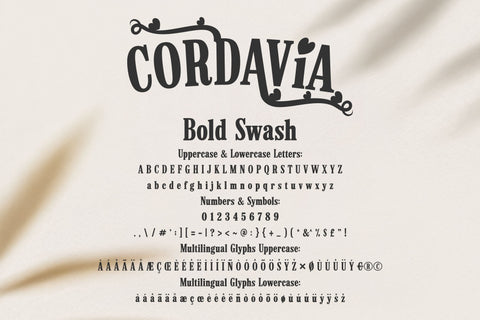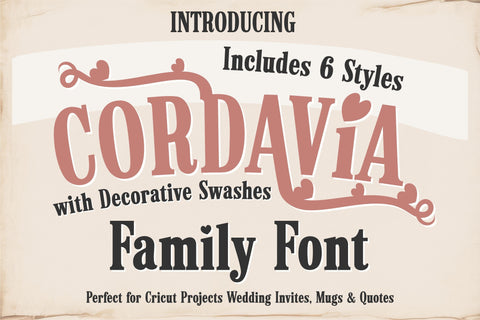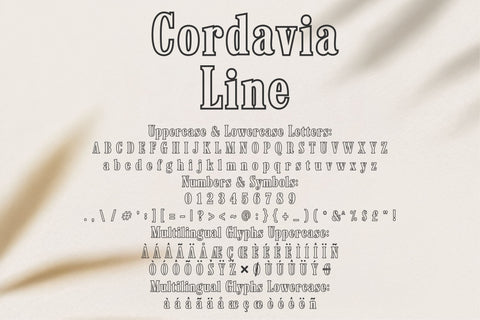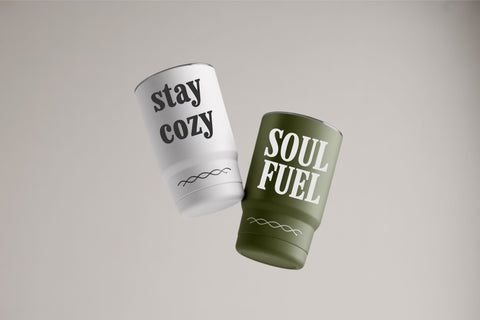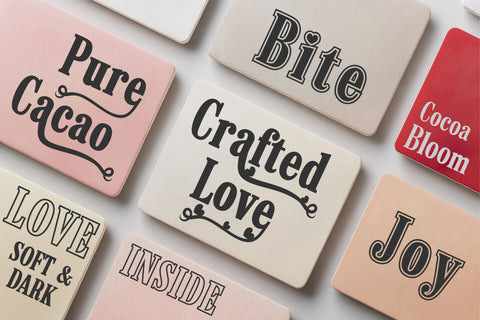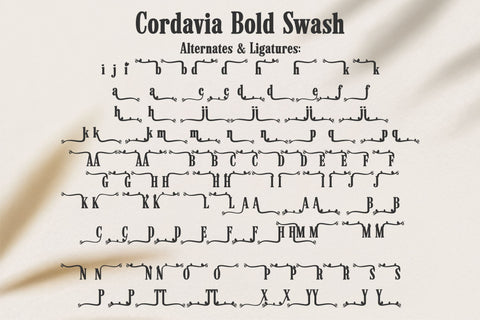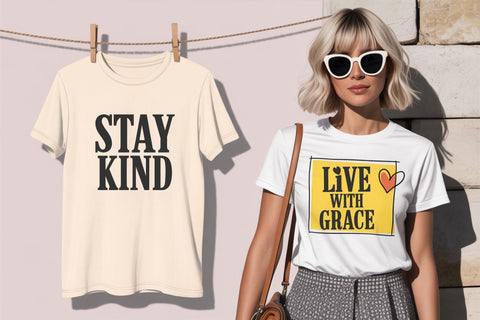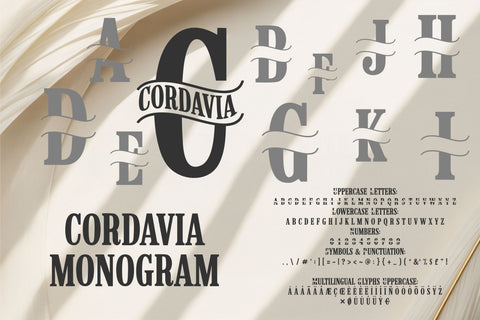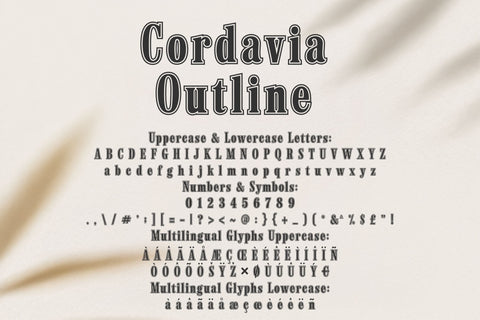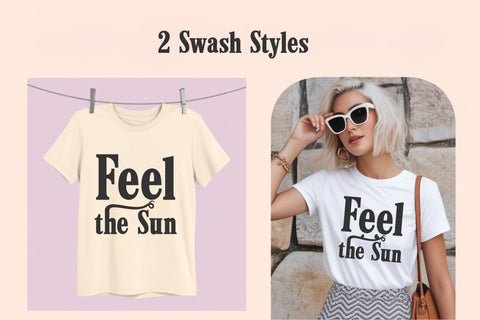
Cordavia Font Bundle - Modern Serif Font Family with Swashes
The Cordavia Font Bundle is a modern serif font family featuring six elegant styles designed for stylish branding, crafting, and display use. The bundle includes Regular, Italic, Line, Outline, Monogram, and Bold Swash – with decorative swashes exclusive to the Cordavia Bold Swash style.
This versatile typeface is ideal for logos, quotes, wedding invitations, mugs, t-shirts, and more. Whether you're working on Cricut projects or Procreate graphics, Cordavia offers the flexibility to match a range of creative needs with a consistent, clean look.
✔ Cordavia Font Family – 6 styles: Regular, Italic, Line, Outline, Monogram, Bold Swash
✔ Swashes included only in Bold Swash style
✔ A–Z, numbers, punctuation, multilingual characters
✔ Great for logos, branding, quotes, wedding designs, mugs, apparel, signs
Perfect For:
🖋 Elegant Logos & Brand Identity
💌 Wedding Invitations & Stationery
🖼 Vintage Posters & Editorial Design
🛍 Product Packaging & Labels
🎨 Cricut & Procreate Crafting
📚 Quotes, Social Media & Blog Graphics
👕 T-shirts, Mugs & Print-on-Demand Items